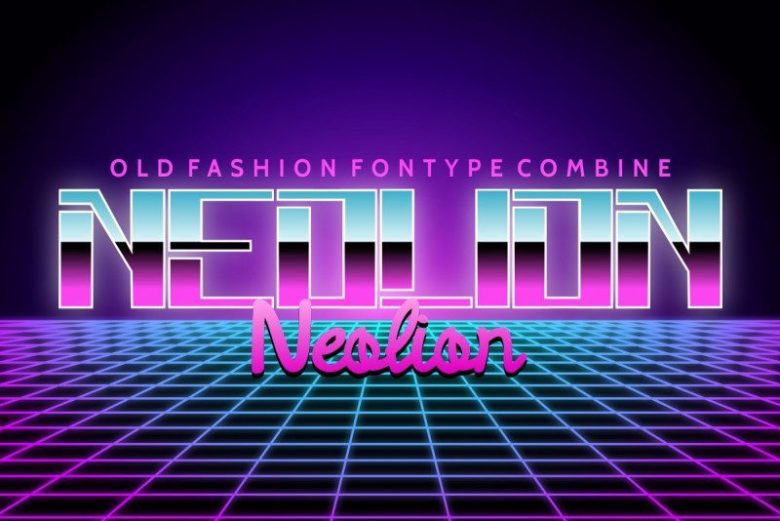
Neolion Font Duo
Please meet our newest font : Neolion ! This is a Neolion Font Duo with modern yet retro style sans serif PLUS calligraphy pen writing script. Unique and exclusive